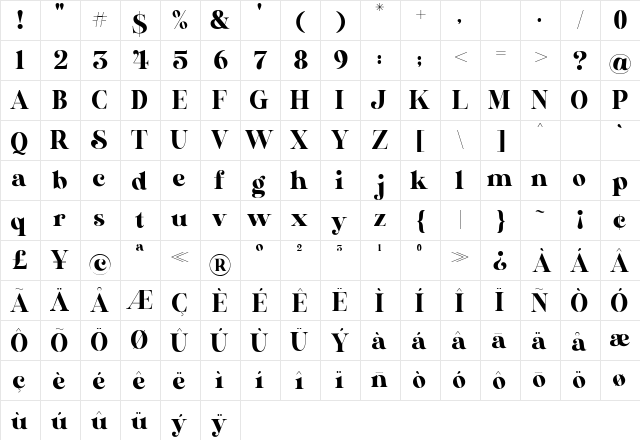
AL Nevrada Personal Use Only Regular
Design Context for AL Nevrada Personal Use Only Typeface
AL Nevrada Personal Use Only takes a measured approach to typography — its balanced proportions and neutral character make it a reliable workhorse for both digital and print work.